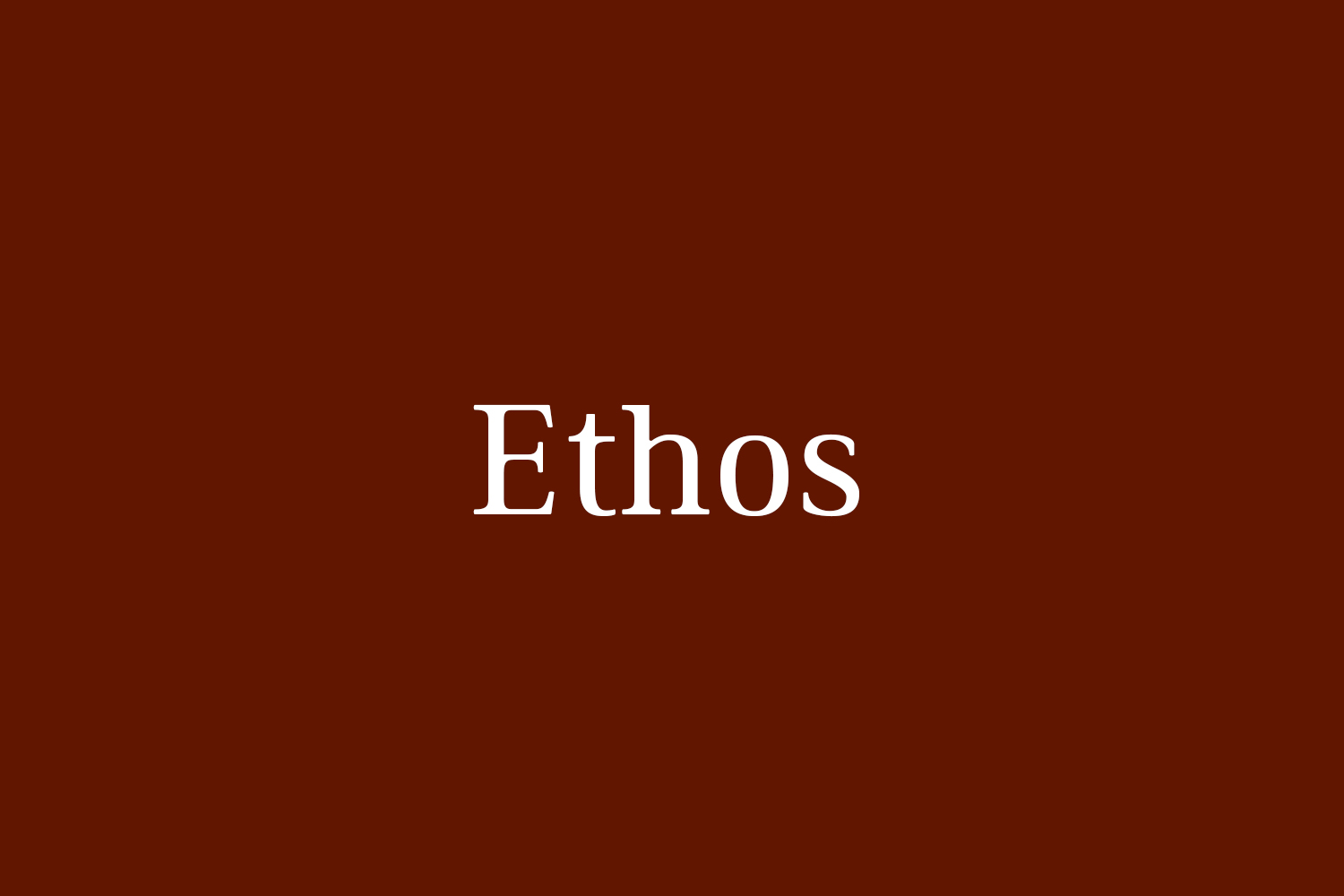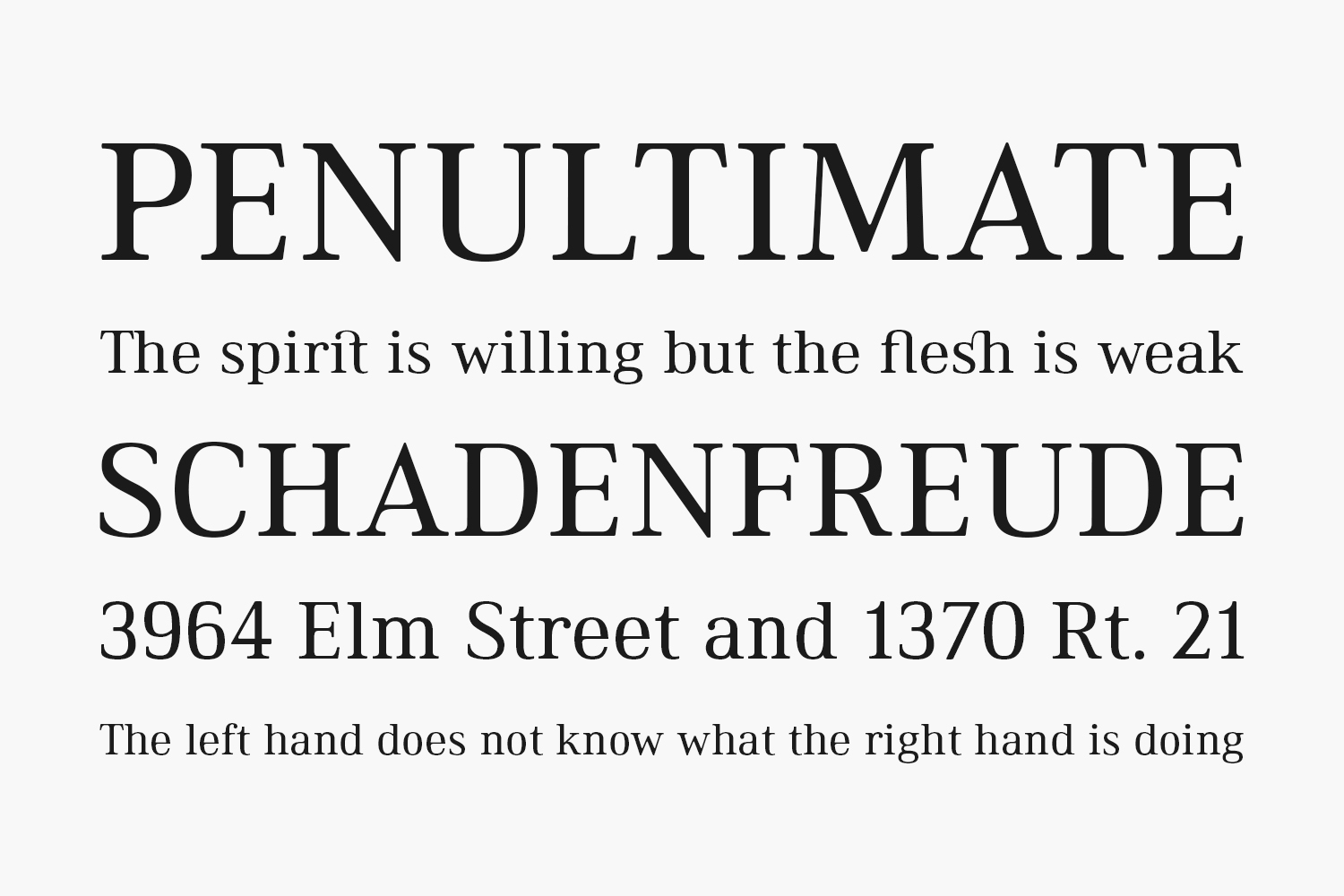
Ethos Free Font Family is a contemporary serif font family and comes in 36 fontstyles with true italics and a huge bunch of opentype features like small caps, ligatures, nominators and denominators, fractions and many more.